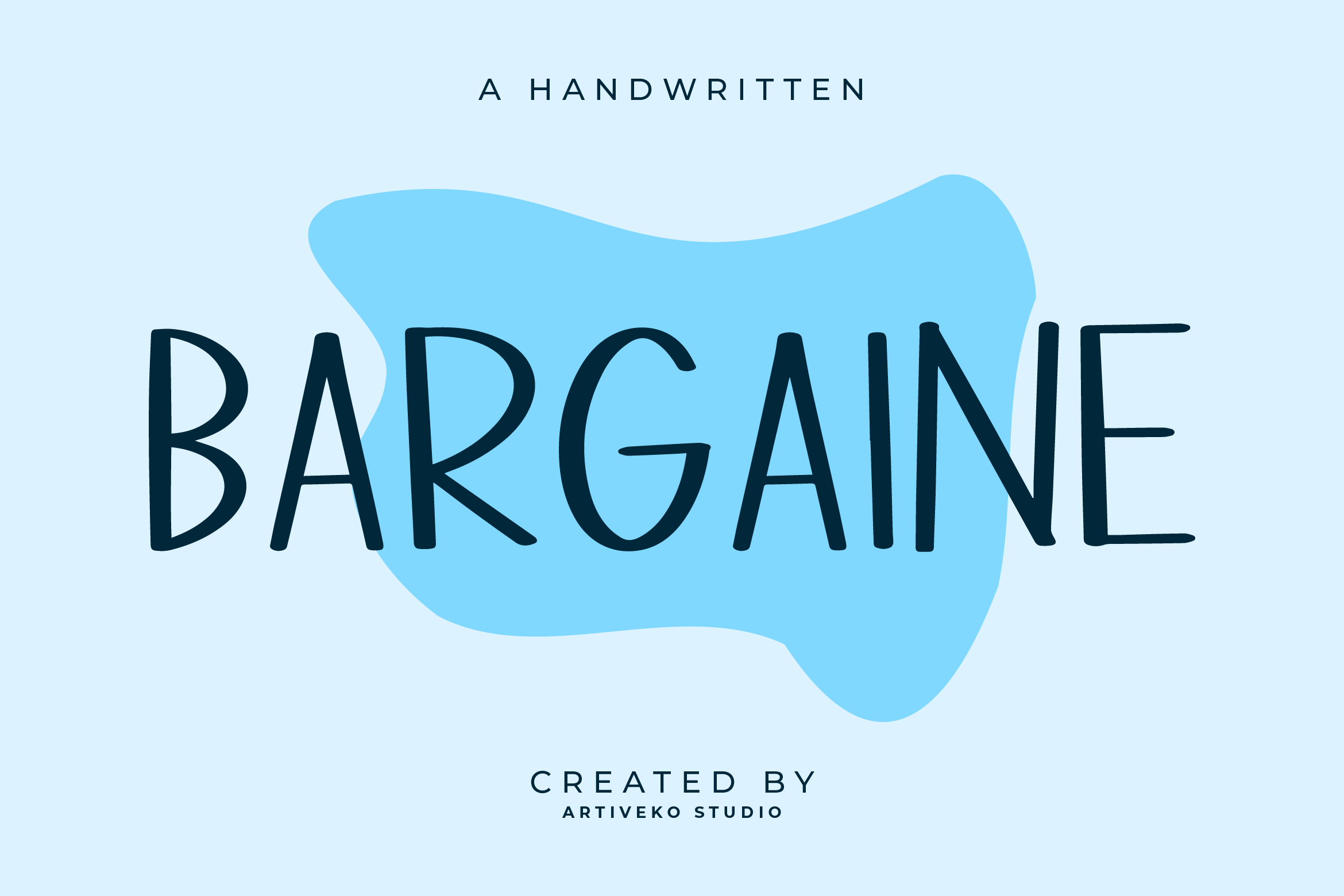
Bargaine Handwritten Font
Bargaine is a simple handwritten font with a unique flair, created by Iwan Alwan. Its distinct style features a variety of uppercase and lowercase characters, adding a playful touch to any text. With multilingual support, Bargaine caters to a global audience, making it versatile for various design needs. Perfect for projects requiring a personal and creative touch, this font stands out with its handcrafted charm.